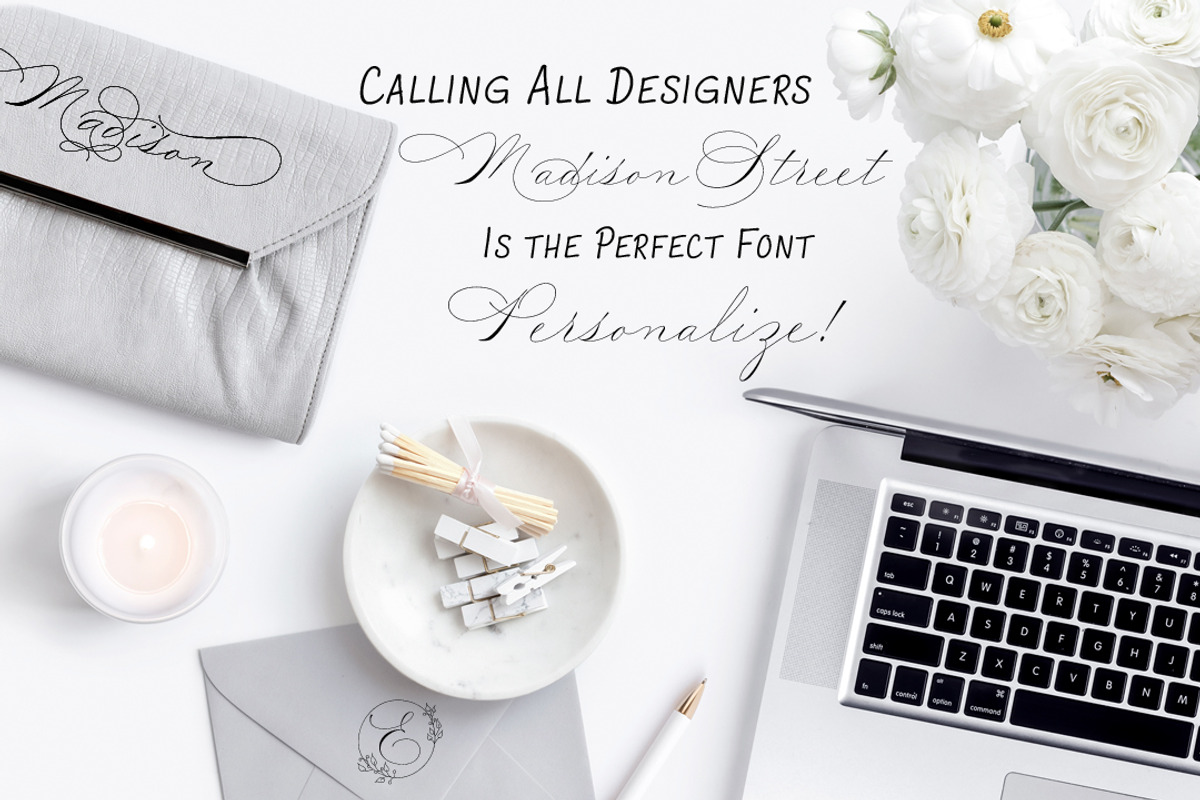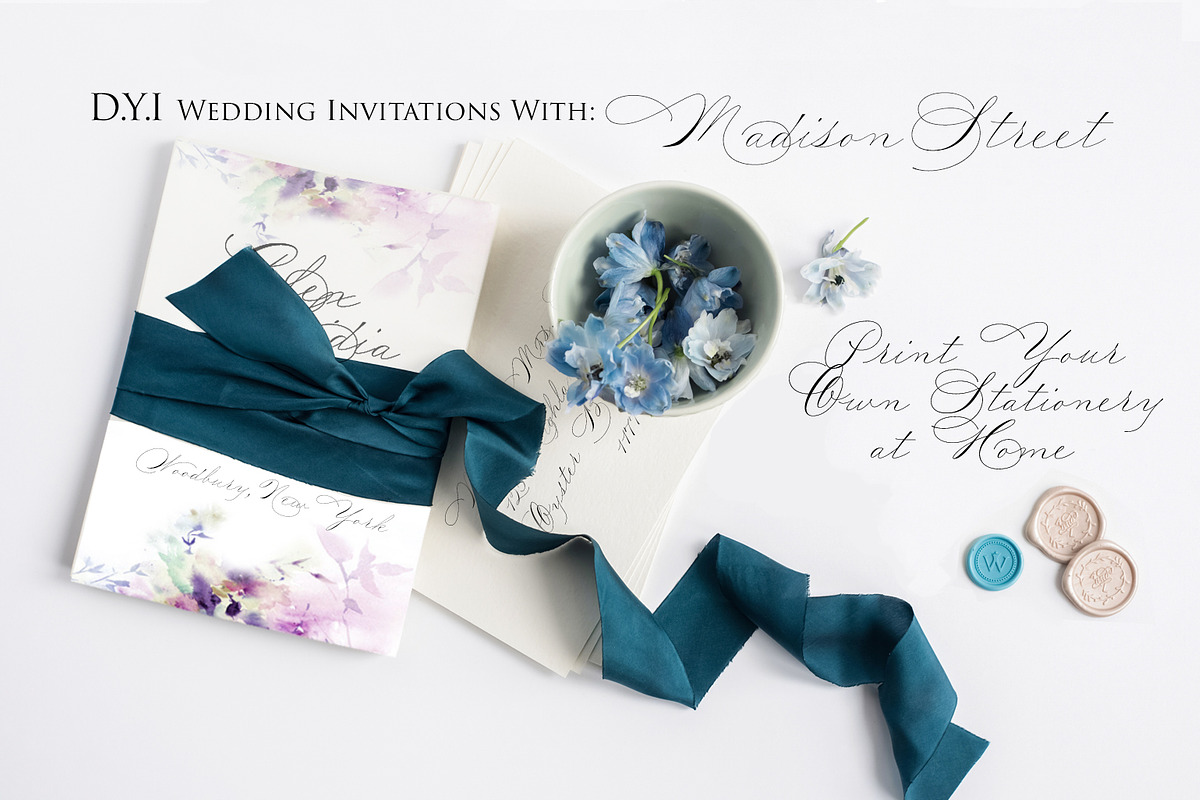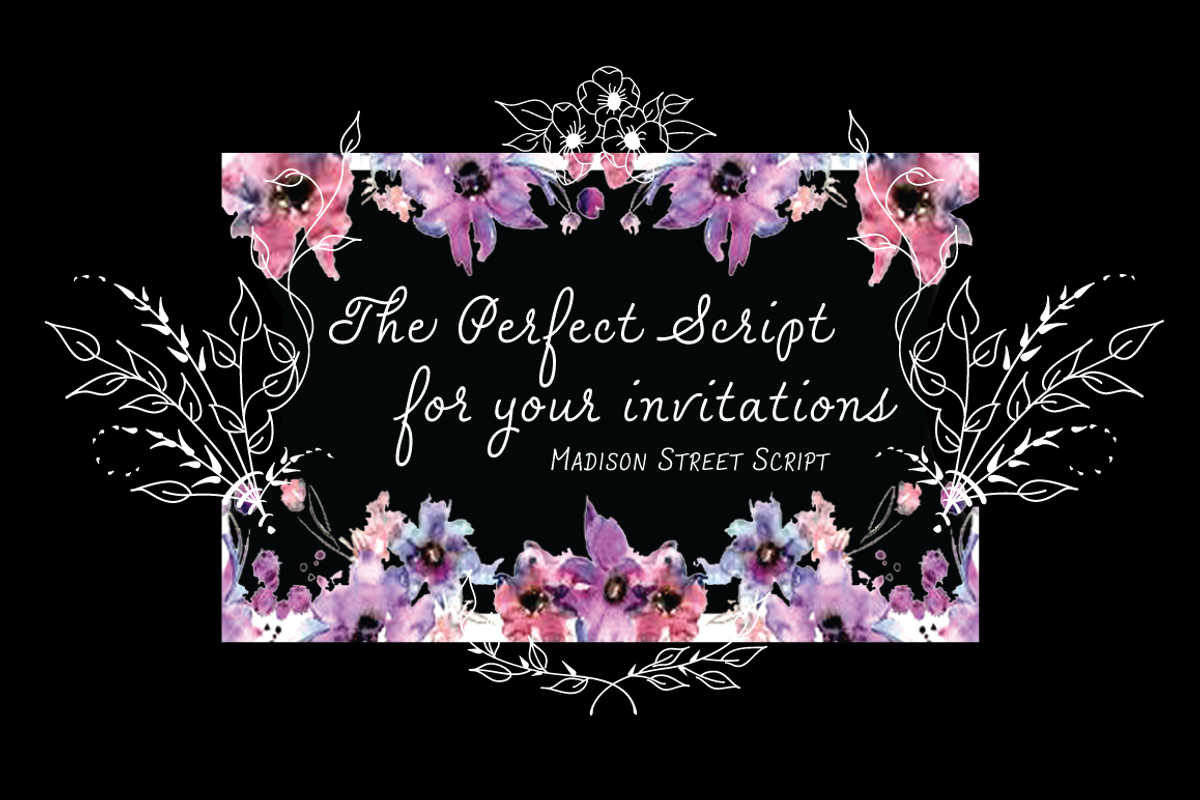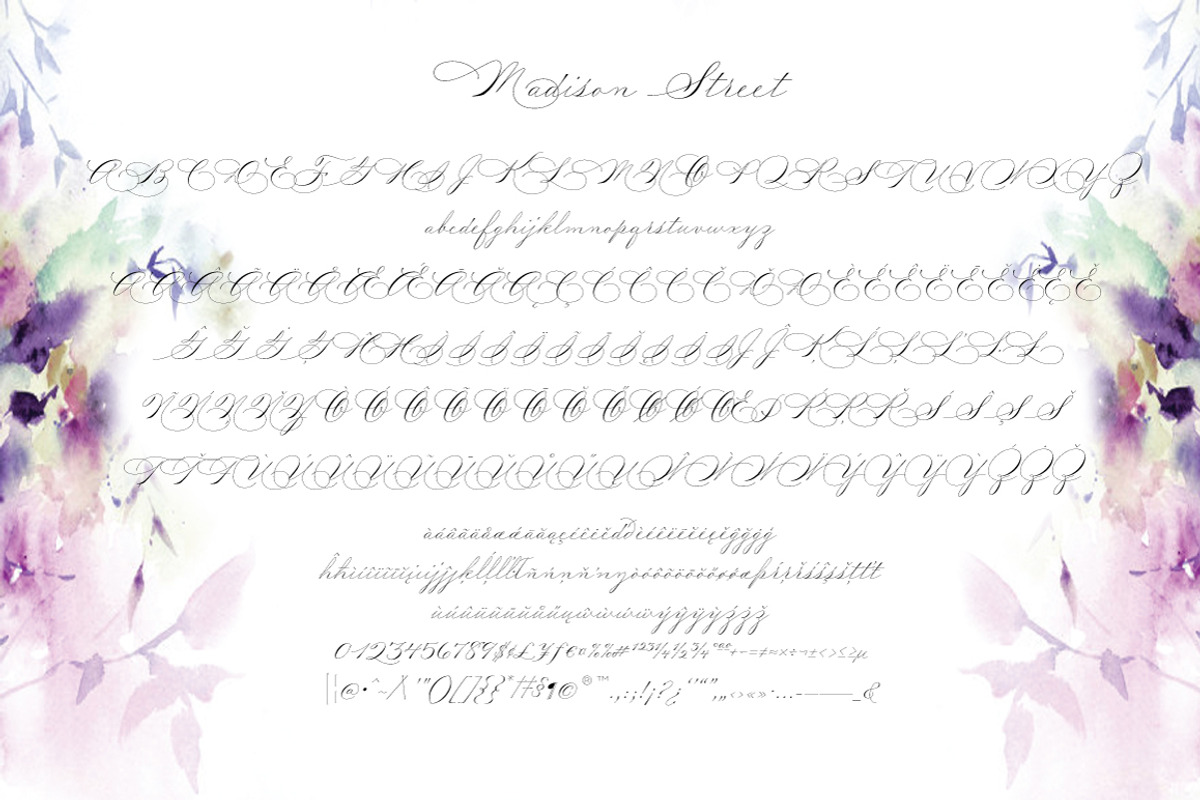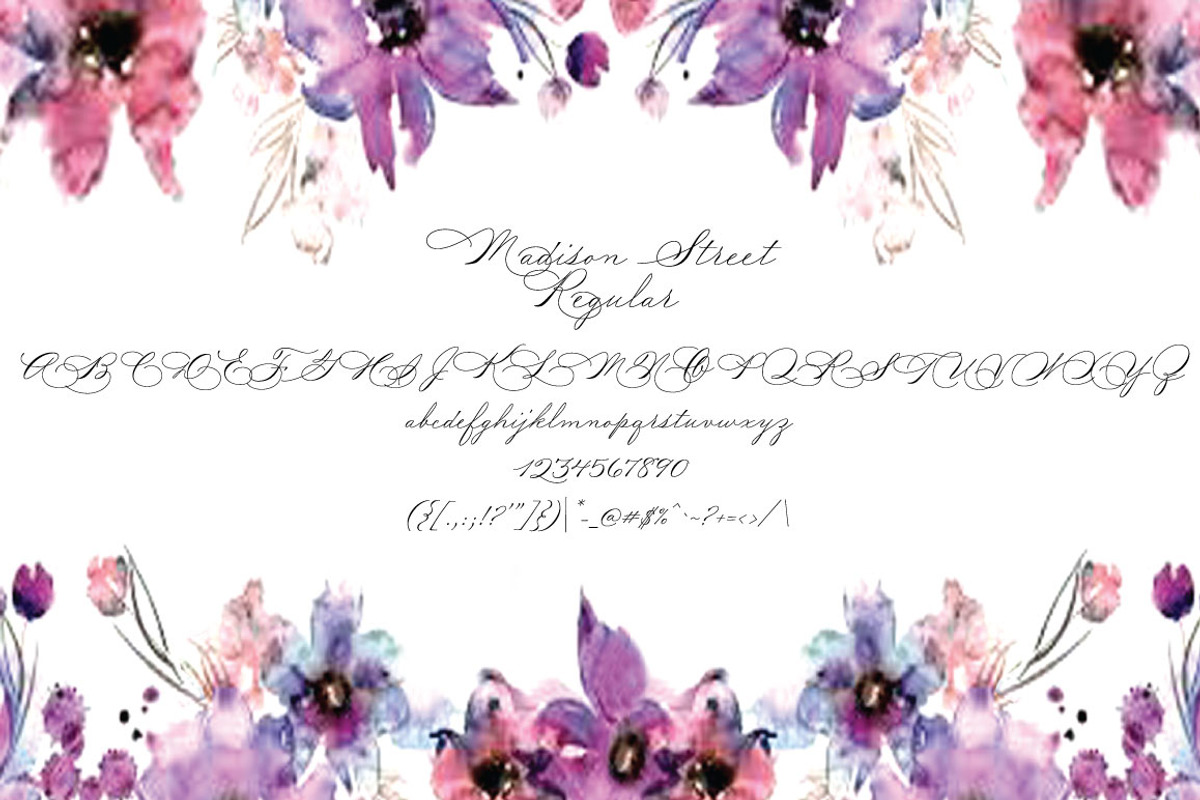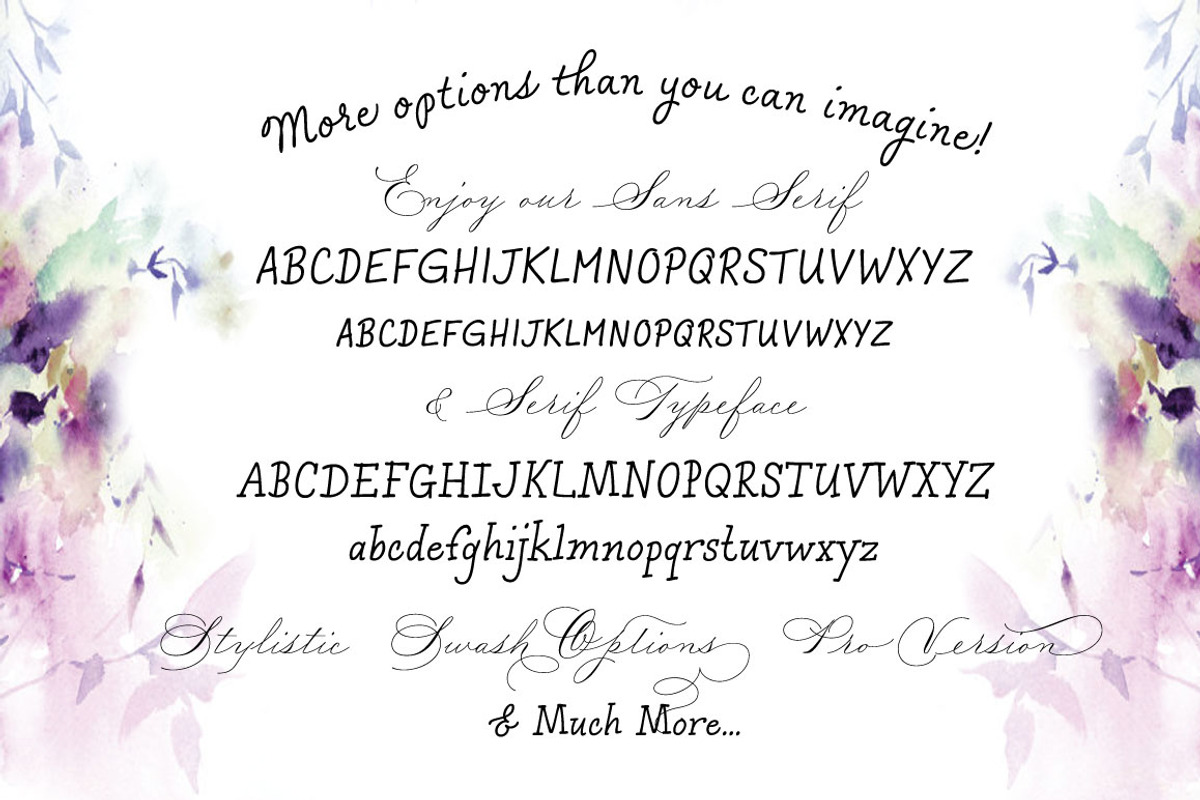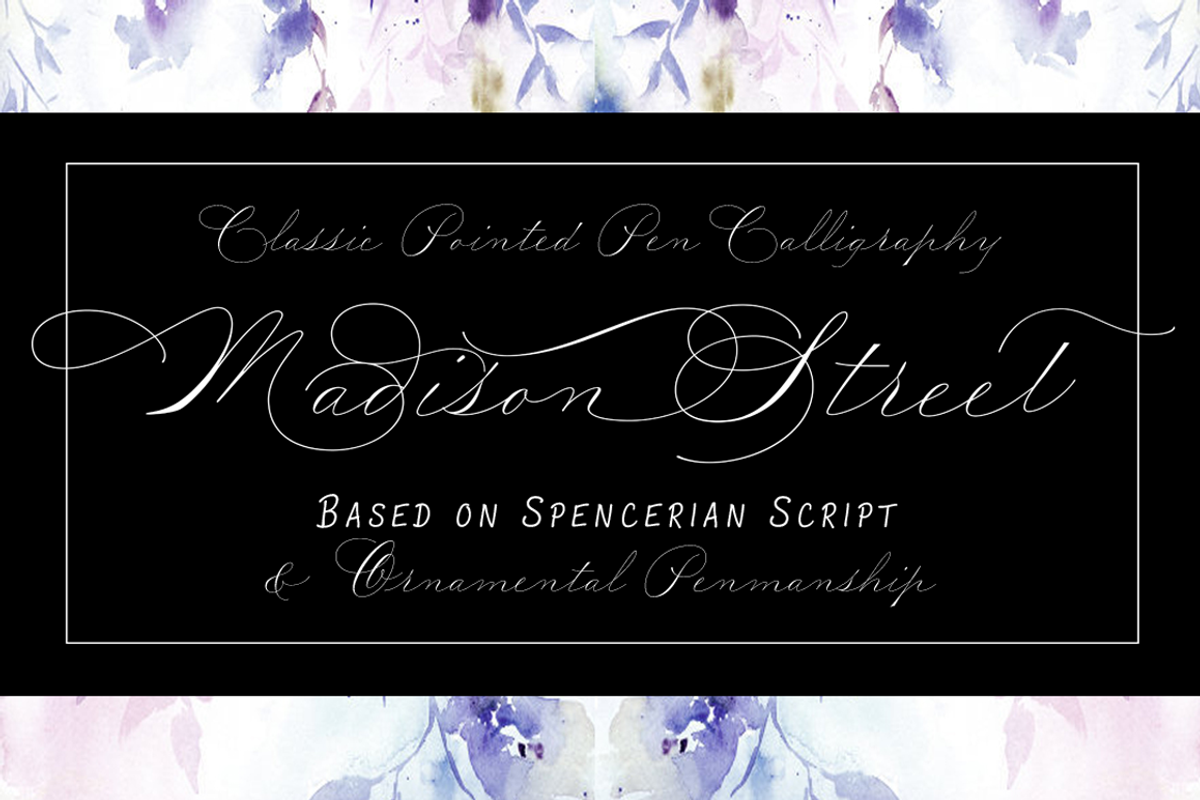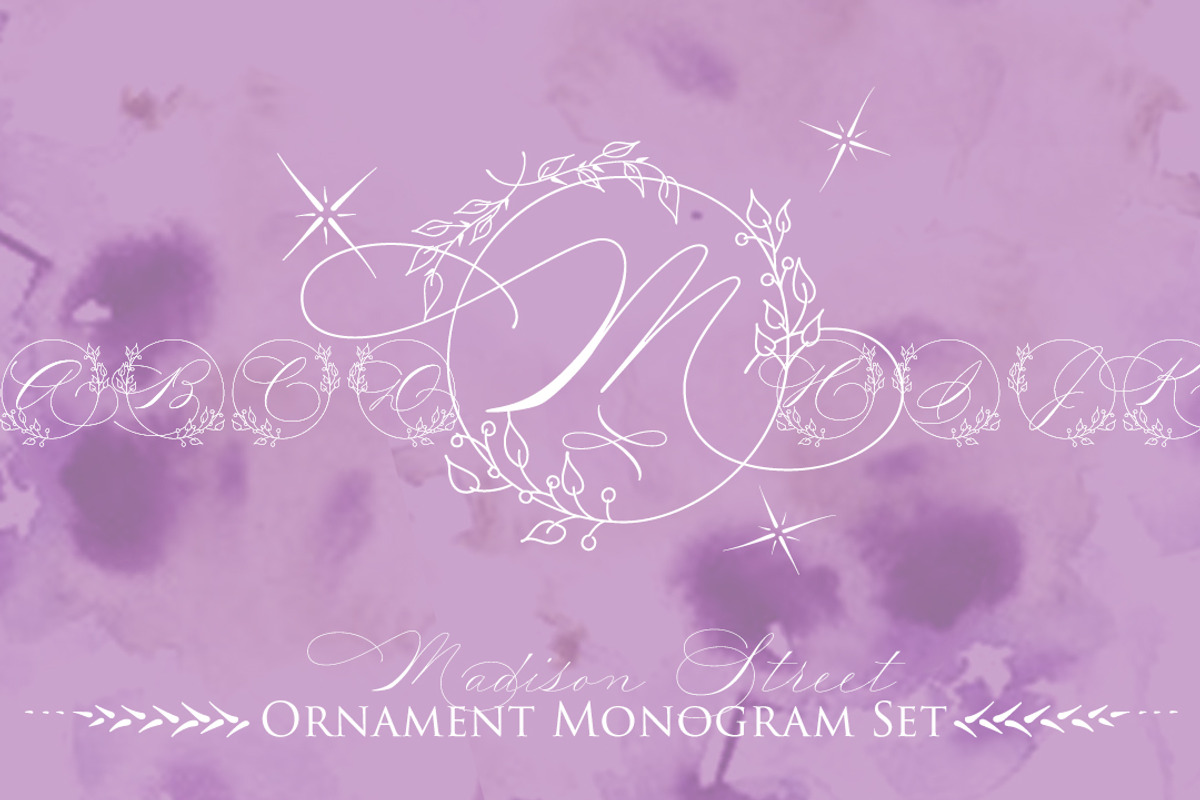
Madison Street Pro
Madison Street is a font family with 8 fabulously fun typefaces! Eliza Gwendalyn & Jim Lyles of Studioways have teamed up with Spencerian calligrapher Elaina DeBoard to create a classic pointed pen calligraphy font. From its ornamental monograms, to its variety of complimentary text styles, and to its Madison Street Pro, with its elegant stylistic swashes and OpenType goodies, there is a font for every designer. Enjoy the sleek Madison Street Sans, Serif or Script, paired with the Ornaments font, complete with ornate monograms, or use each typeface on its own!
Madison Street Pro has all the OpenType bells and whistles. The Ligature feature automatically substitutes beginning and ending letterforms, as well as 100 ligatures. Turn on the Swash feature for elegantly sweeping swash lowercase forms. Enable Stylistic Alternates for even more variations. There are also 10 Style Sets to chose from. And many more OT features